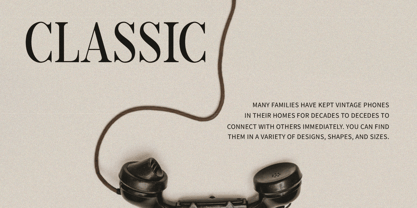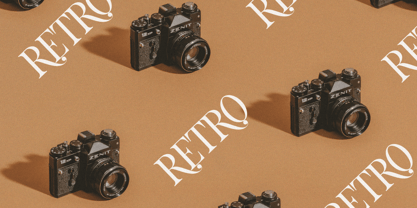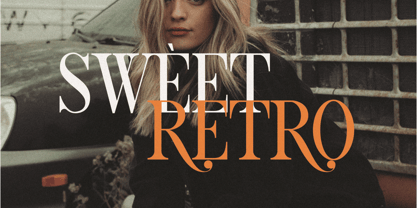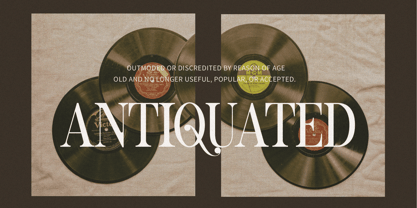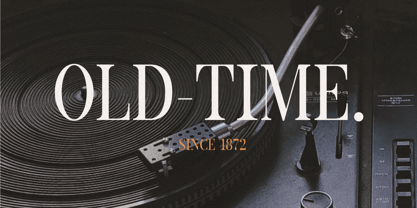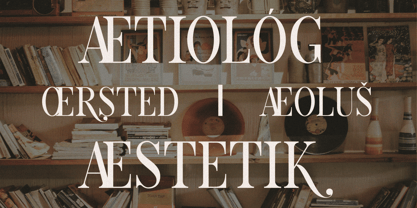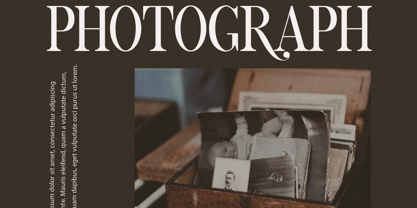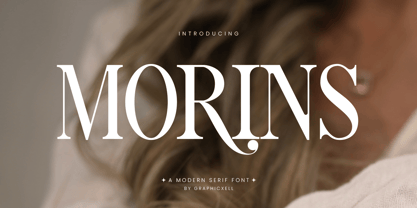
Morins
by Graphicxell
Morins Elegant Serif Font – Stylish Simplicity for Modern Branding
Morins Elegant Serif is a beautiful and modern serif font that gives your design a clean, classic look. It blends smooth curves with sharp edges, so it feels elegant without being too formal. Because of its clean style, it fits many types of projects.
The font includes two styles—Regular and Italic. This gives you the flexibility to add contrast and movement to your design. Whether you're working on a logo, website, or packaging, Morins helps your work look stylish and professional.
Moreover, the font is easy to read. You can use it for both large headlines and small body text. That makes it great for branding, social media posts, or even magazine layouts. Since it's simple and refined, it also works well in both digital and print formats.
Why Choose Morins Elegant Serif?
• Elegant and Clean – Gives your work a sharp and stylish finish.
• Two Styles Included – Regular and Italic for more design options.
• Made for Branding – Ideal for logos, product labels, websites, and more.
• Great for Text – Looks beautiful in both small and large sizes.
Perfect For:
• Logo design
• Fashion and lifestyle branding
• Product packaging and labels
• Blogs, websites, and social media
• Magazines and ads
In summary, Morins Elegant Serif is simple, stylish, and made for modern creators. If you want your design to stand out, this font is a great choice. So go ahead—use Morins and bring your ideas to life with elegance and clarity.